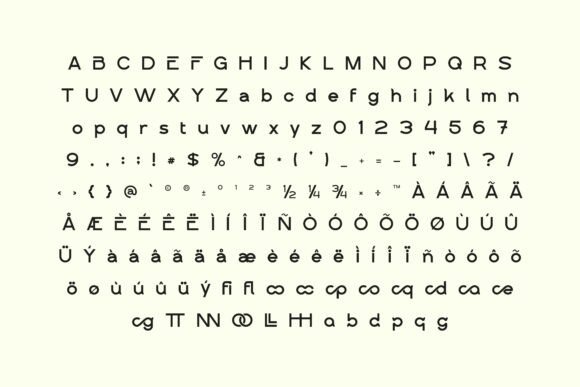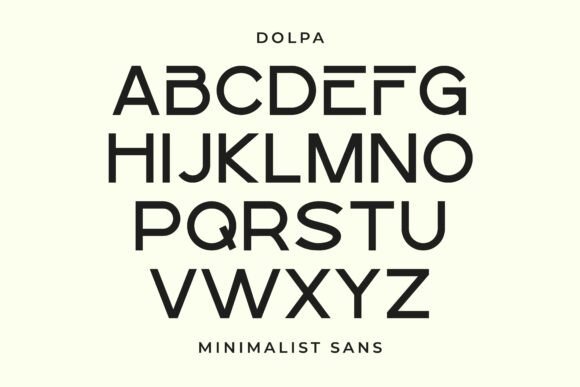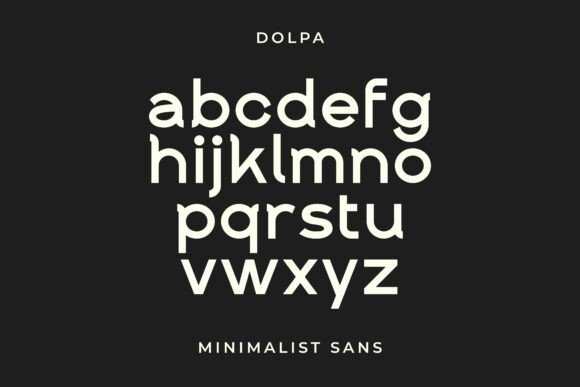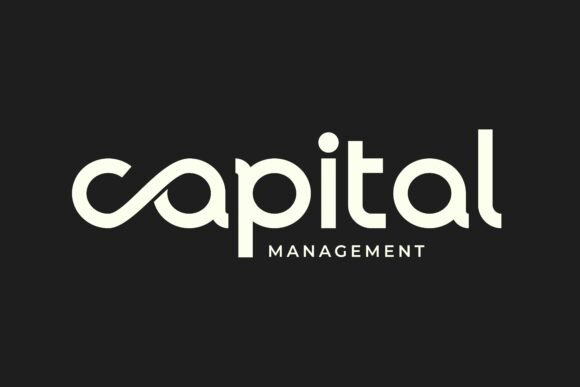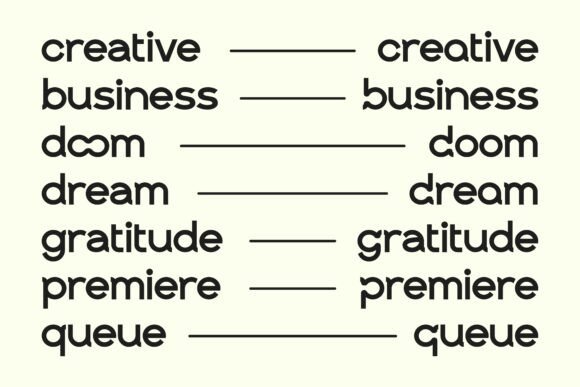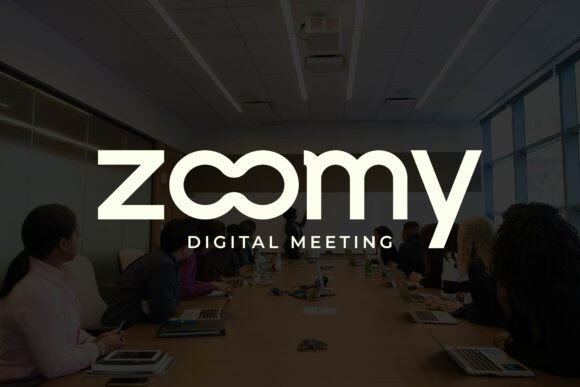
Dolpa Font: Elevate Your Design with a Sleek and Contemporary Sans Serif
In the world of typography, a well-crafted font can make all the difference in elevating your design to the next level. Introducing Dolpa, a sleek and contemporary sans serif font that embodies clarity, balance, and timeless appeal. With its smooth curves, geometric construction, and well-spaced letterforms, Dolpa is the perfect choice for designers and crafters looking to add a professional and modern touch to their branding, editorial layouts, packaging, website design, and social media graphics.
The Design Philosophy Behind Dolpa
Dolpa’s design is rooted in the principles of simplicity, legibility, and versatility. The font’s sans serif design ensures a clean and minimalist look, making it ideal for a wide range of applications. The smooth curves and geometric construction of Dolpa’s letterforms create a sense of harmony and balance, allowing the font to adapt seamlessly to various design contexts.
One of the key features that sets Dolpa apart is its exceptional legibility. The font’s well-spaced letterforms and carefully crafted kerning ensure that text remains clear and easy to read, even at smaller sizes. This makes Dolpa an excellent choice for body text, headings, and titles, as well as for digital applications where readability is paramount.
Applications for Dolpa Font
Dolpa’s versatility makes it an excellent choice for a wide range of design applications. Here are some of the ways you can use Dolpa to elevate your design:
- Branding: Use Dolpa to create a professional and modern brand identity that stands out from the crowd. The font’s sleek and contemporary design makes it perfect for logos, business cards, and letterheads.
- Editorial Layouts: Dolpa’s exceptional legibility and clean design make it an excellent choice for editorial layouts, including magazines, newspapers, and books.
- Packaging: Add a touch of sophistication to your packaging design with Dolpa. The font’s geometric construction and smooth curves create a sense of luxury and elegance.
- Website Design: Use Dolpa to create a professional and modern website that showcases your brand’s personality. The font’s clean design and exceptional legibility make it perfect for digital applications.
- Social Media Graphics: Elevate your social media graphics with Dolpa’s sleek and contemporary design. The font is perfect for creating engaging and professional-looking graphics that stand out on social media platforms.
Why Choose Dolpa Font?
With so many fonts available, why choose Dolpa? Here are some reasons why Dolpa stands out from the crowd:
- Unique Design: Dolpa’s sleek and contemporary design sets it apart from other sans serif fonts. The font’s smooth curves and geometric construction create a sense of harmony and balance that is hard to find in other fonts.
- Exceptional Legibility: Dolpa’s exceptional legibility makes it perfect for a wide range of applications, from body text to headings and titles.
- Versatility: Dolpa’s versatility makes it an excellent choice for a wide range of design applications, from branding and editorial layouts to packaging and digital design.
- Professional and Modern: Dolpa’s sleek and contemporary design makes it perfect for designers and crafters looking to add a professional and modern touch to their design.
In conclusion, Dolpa is a sleek and contemporary sans serif font that is perfect for designers and crafters looking to elevate their design to the next level. With its smooth curves, geometric construction, and well-spaced letterforms, Dolpa embodies clarity, balance, and timeless appeal. Whether you’re looking to create a professional brand identity, design editorial layouts, or add a touch of sophistication to your packaging, Dolpa is the perfect choice. So why wait? Try Dolpa today and experience the difference for yourself.